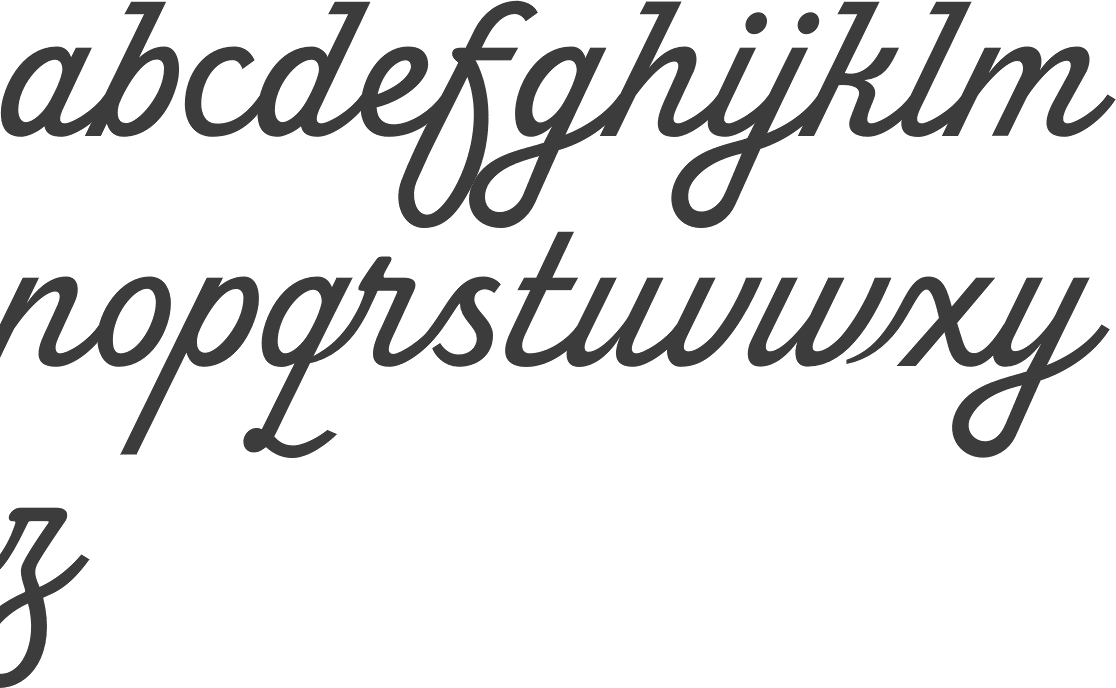
Discover The Best Free Thick Cursive Fonts For 2023
Are you looking for the perfect font for your next design project? Whether you're designing a logo, website, invitation card, or any other type of design, the font you select can make or break your end result. While there are plenty of free fonts available online, finding a free thick cursive font can be a challenge. To make life easier for you, we've rounded up the best free thick cursive fonts for 2023.
1. The Black Jack
The Black Jack is a modern and stylish thick cursive font that is perfect if you're looking to make a bold statement with your design. This font has a clean and minimalistic design, and it looks great when used on websites, posters, flyers, and more. It's also free for both personal and commercial use.
2. Big Saloon
Big Saloon is a stunning font with a vintage vibe. Its thick and bold curves give it a classic and luxurious feel, making it perfect for use in logos and branding. This font is also free for both personal and commercial use.
3. Mon Petit
Mon Petit is a beautiful handwritten font with a whimsical and playful feel. Its thick and curved letters make it perfect for use in invitations, cards, and other design projects. This font is free for personal use only.
4. Dangreville
Dangreville is a unique and elegant font with a vintage vibe. Its thick and curved letters make it perfect for use in logos and branding. This font is free for both personal and commercial use.
5. Rivella
Rivella is a bold and stylish font with a modern edge. Its thick and curved letters make it perfect for use in logos and branding. This font is free for both personal and commercial use.
Finding the perfect font for your design project doesn't have to be a daunting task. With so many great free thick cursive fonts available, you're sure to find the perfect one for you. We hope you found this list of the best free thick cursive fonts for 2023 helpful!